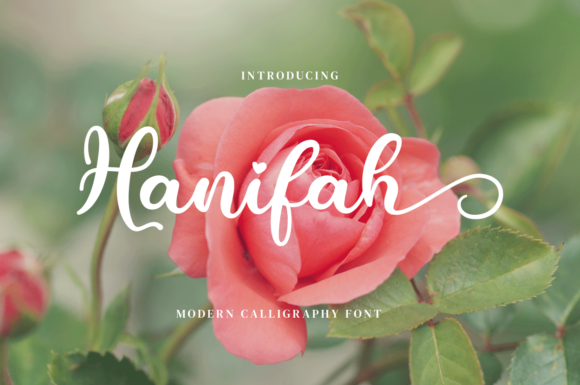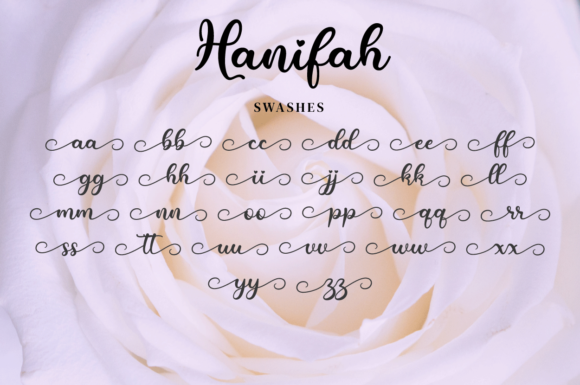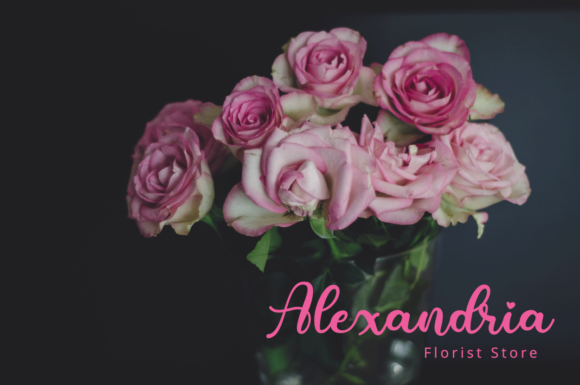
About Hanifah Font
Hanifah a delicate, flowing and modern script font. This font is PUA encoded which means you can access all of the glyphs and swashes with ease!Fall in love with its versatility and use it to create spectacular designs!